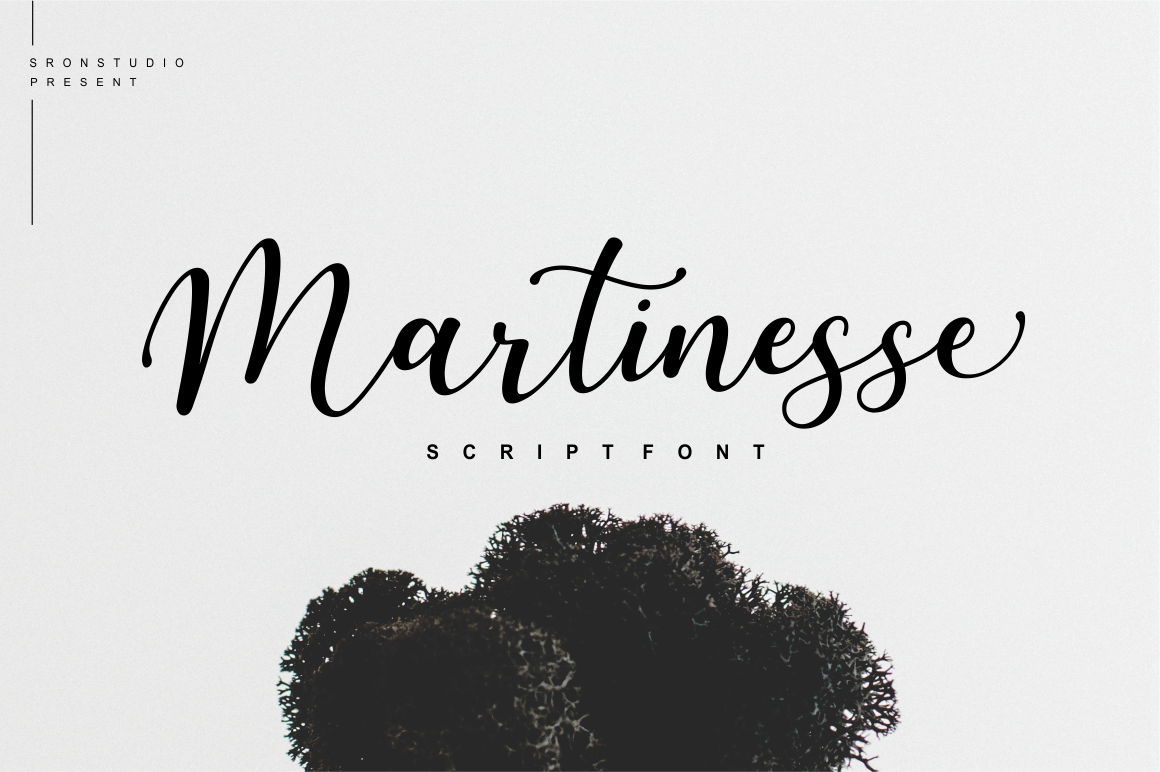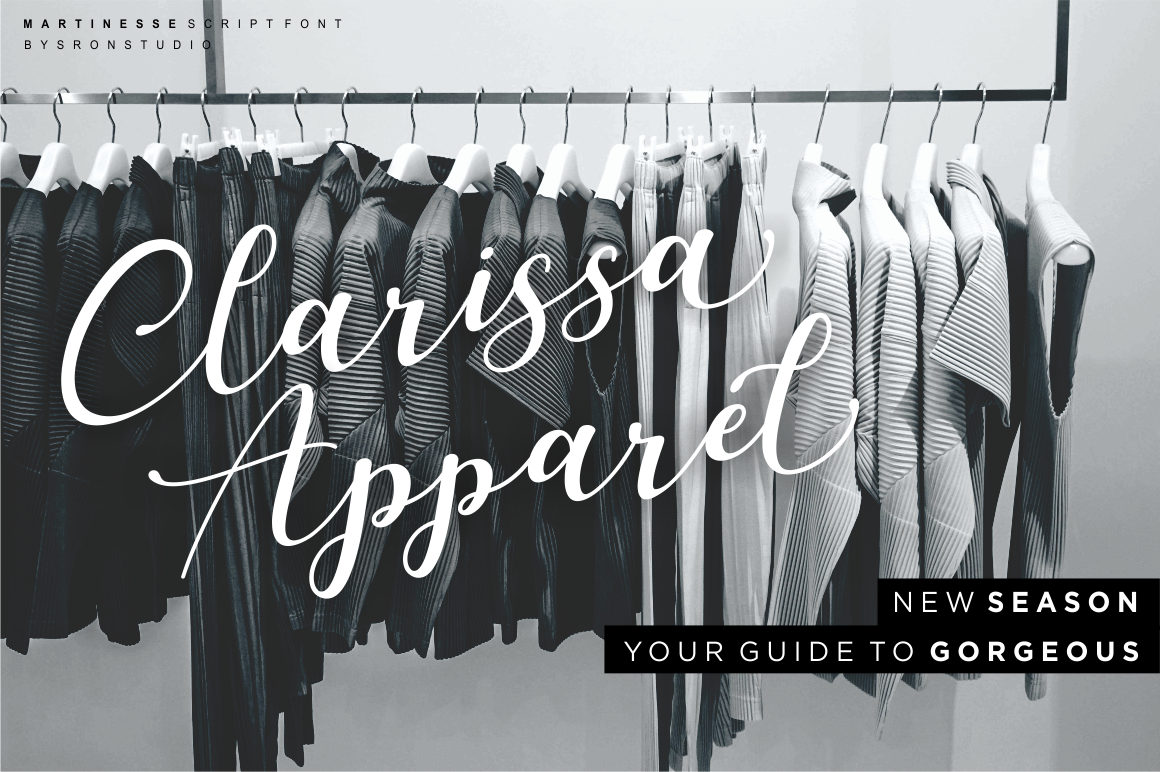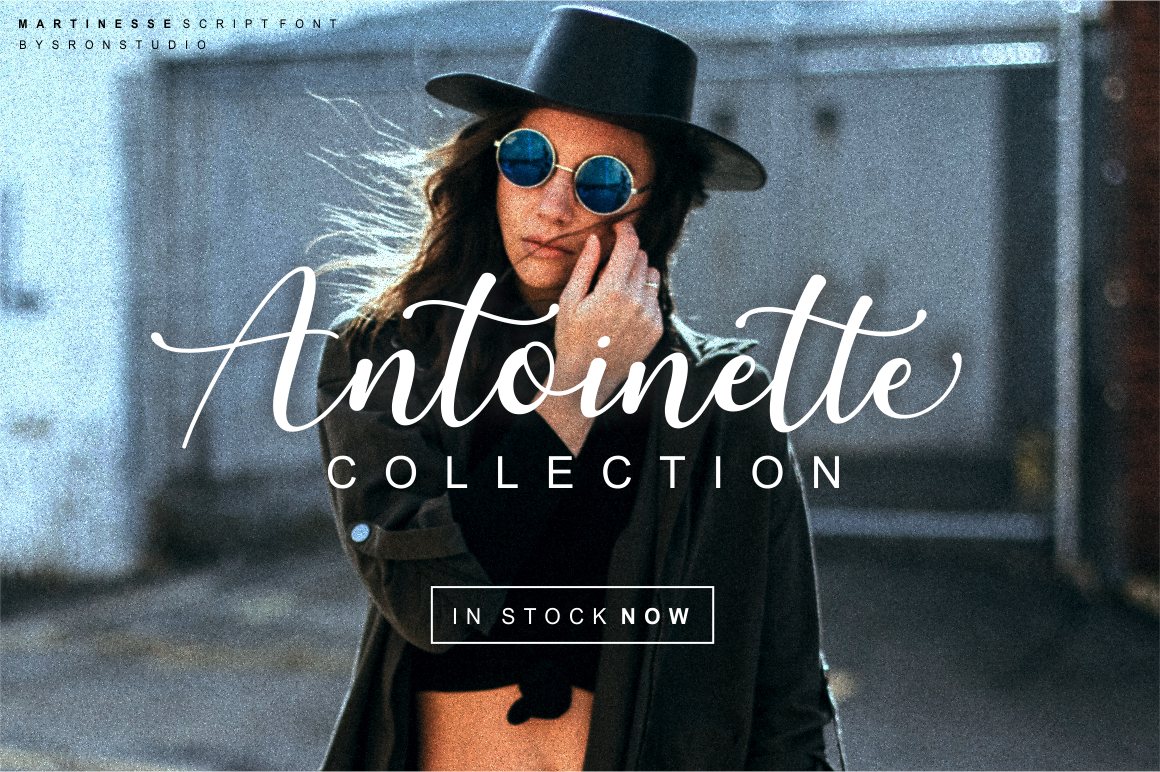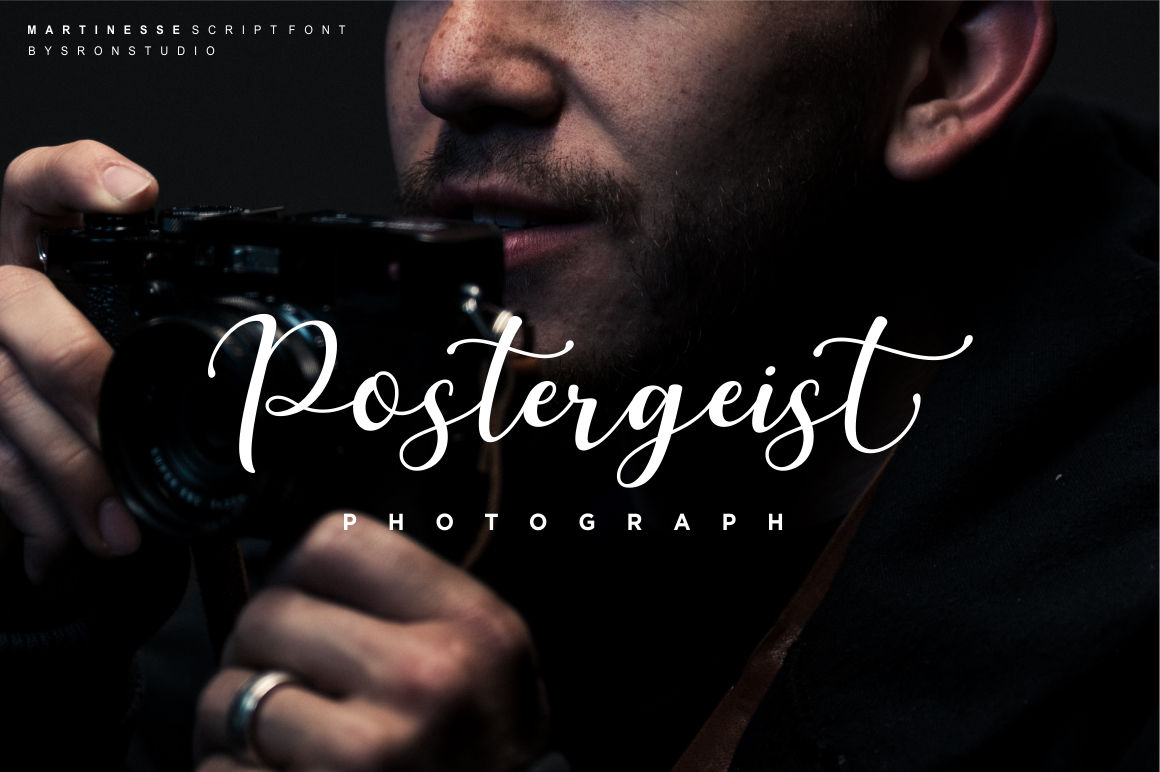
Today we're glad to feature this free martinesse script font. This free font file was found from the amazing source called Yusron Billah. Easily amaze your audience with this fancy font and make your graphic designs pop up from the crowd.